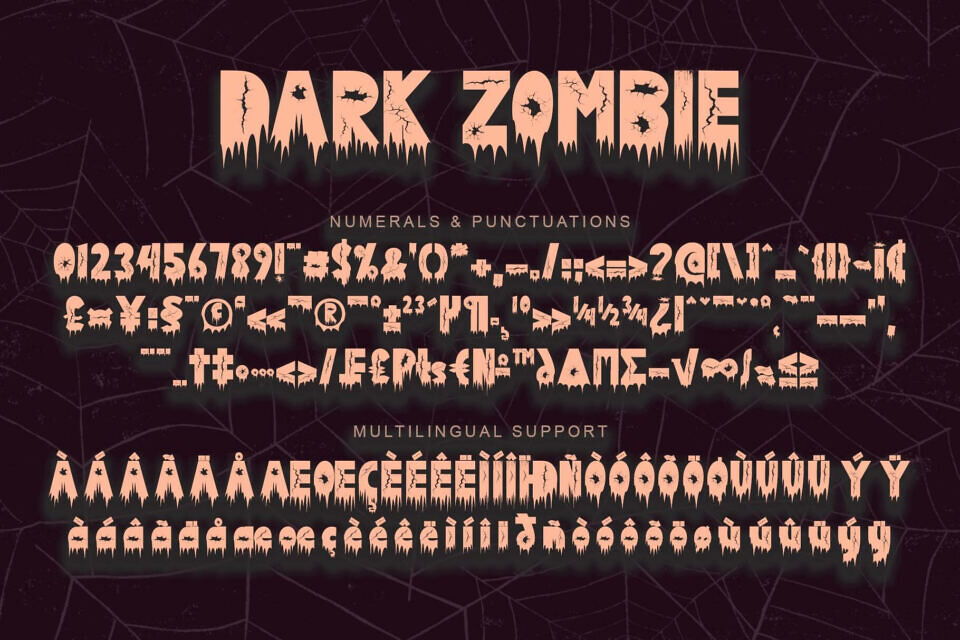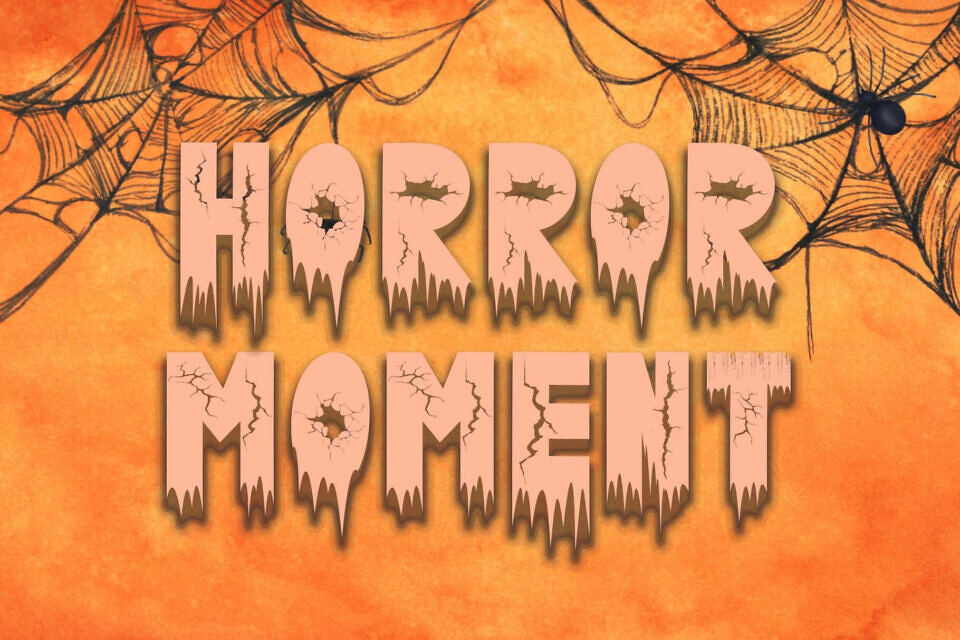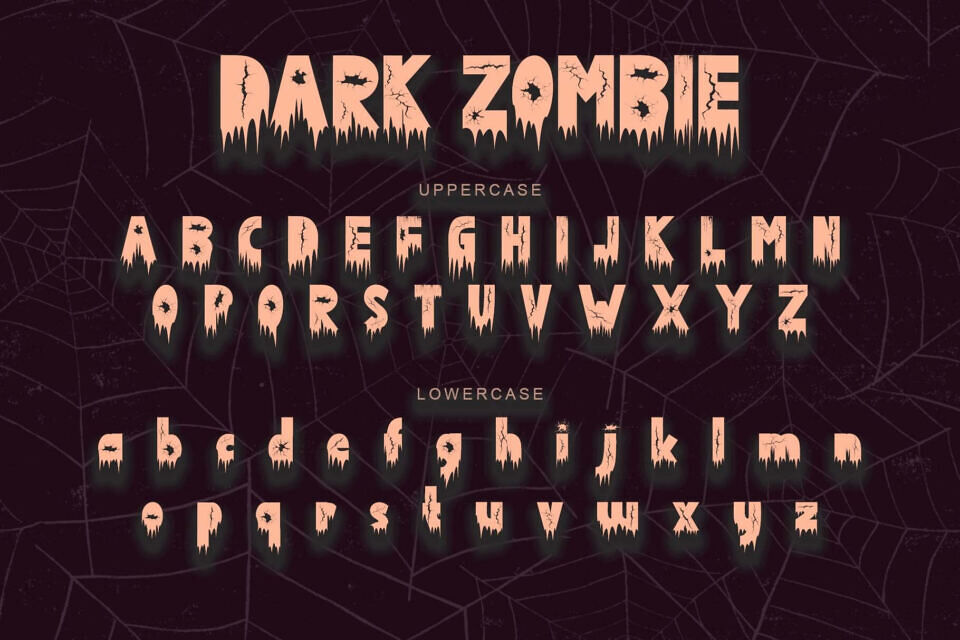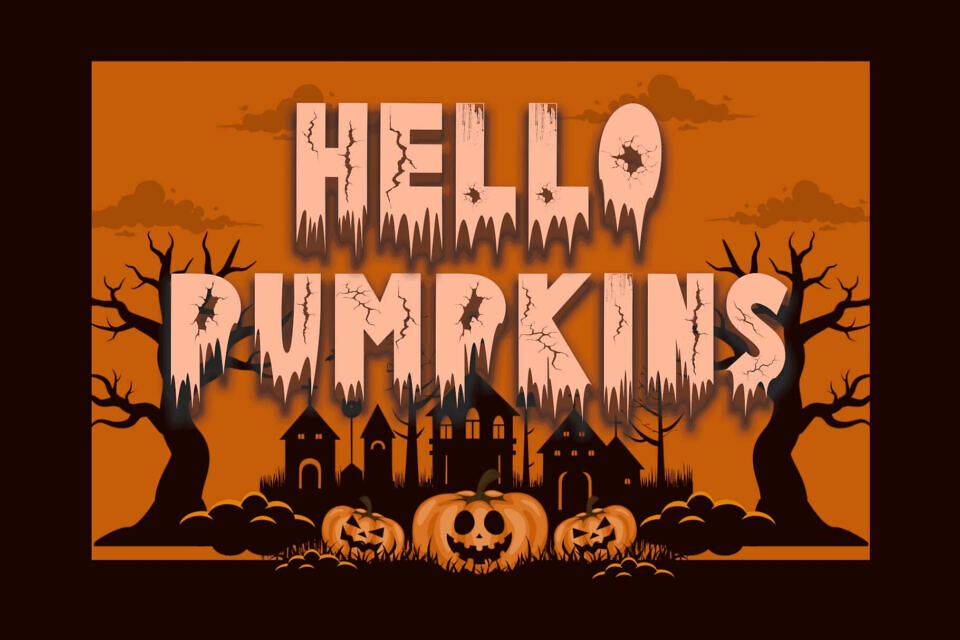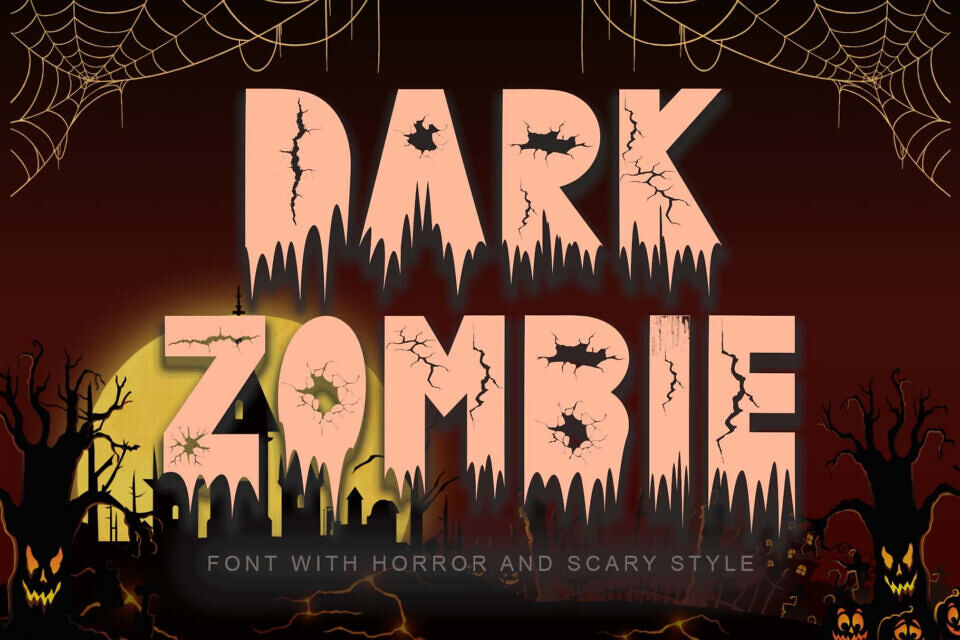
Dark Zombie Font
Crafted for high-impact visual drama, the Dark Zombie typeface evokes a sense of decay and unease. Each character features fractured surfaces, deep fissures, and pointed, melting drips, suggesting deterioration.
Tight letter spacing increases tension, while jagged edges and varied vertical rhythms maintain instability. The font’s detailed texture, including fine cracks and crater-like perforations, simulates brittle surfaces like aged plaster.
Optimized for large-scale use, this typeface is perfect for titles, posters, and horror-themed branding where fractured, distressed aesthetics are desired without relying on stereotypical gore.